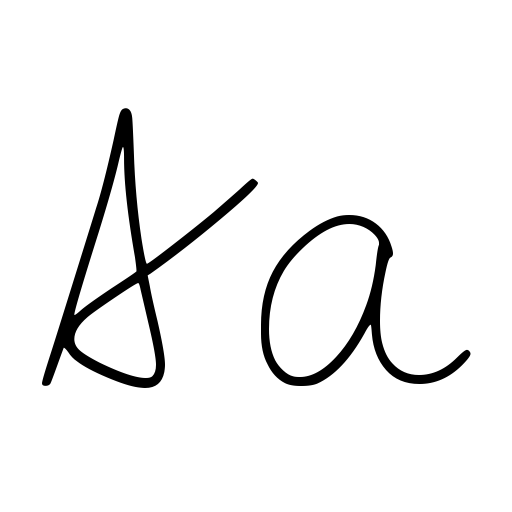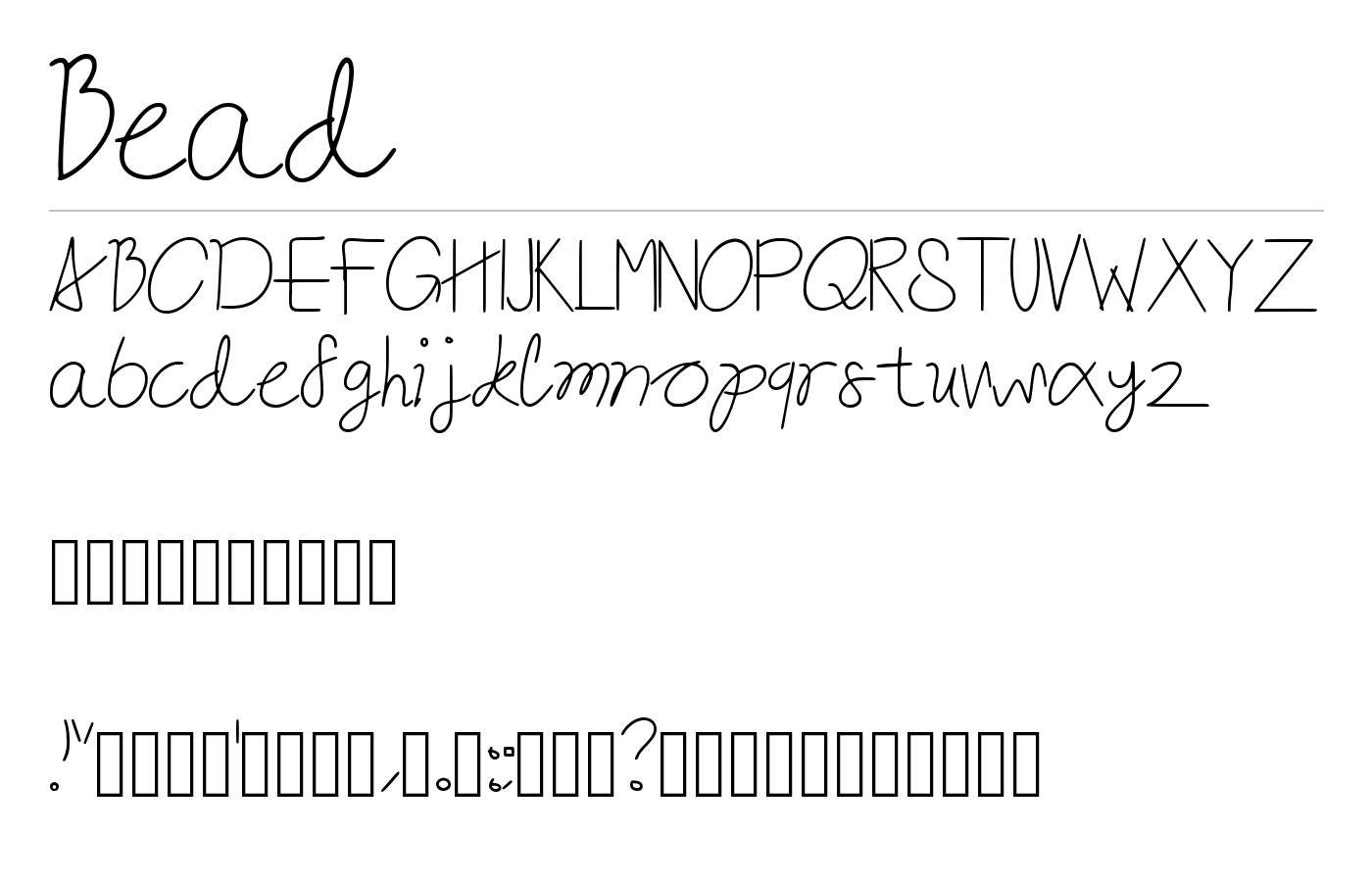
Bead Font is a delicate and whimsical handwritten script that features slender, graceful strokes with a casual, playful charm. Its uneven letterforms and light weight give it a friendly, approachable personality, making it ideal for creative projects, informal branding, and personal invitations where a touch of individuality and warmth is desired. This font works well in headlines, logos, and decorative uses where a unique, hand-crafted feel enhances the design.
Bead Font
About Bead Font